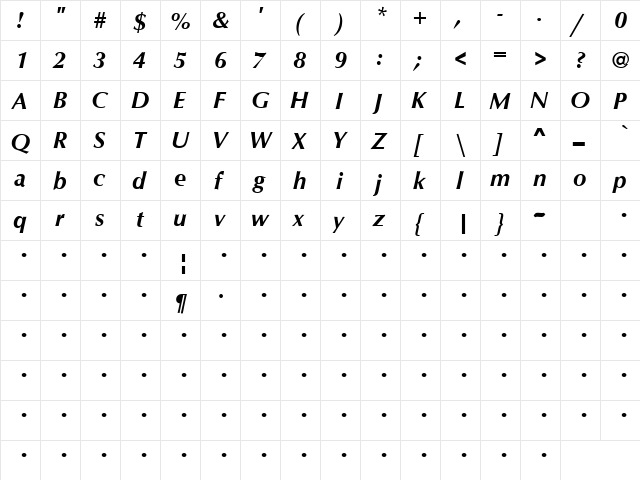
Rain Song 4 Bold Italic Font Preview
Rain Song 4 Bold Italic
Rain Song 4 Bold Italic Font Details
Design Context for Rain Song 4 Typeface
Rain Song 4 offers clean, dependable letterforms without strong stylistic allegiance, making it a practical choice for designers who need flexibility. The slanted form adds forward momentum and visual energy. The heavy weight commands attention and anchors typographic hierarchies.
Pro Tip: Try Rain Song 4 for annotation and caption copy alongside an upright companion — the contrast in angle creates a dynamic but ordered typographic system.